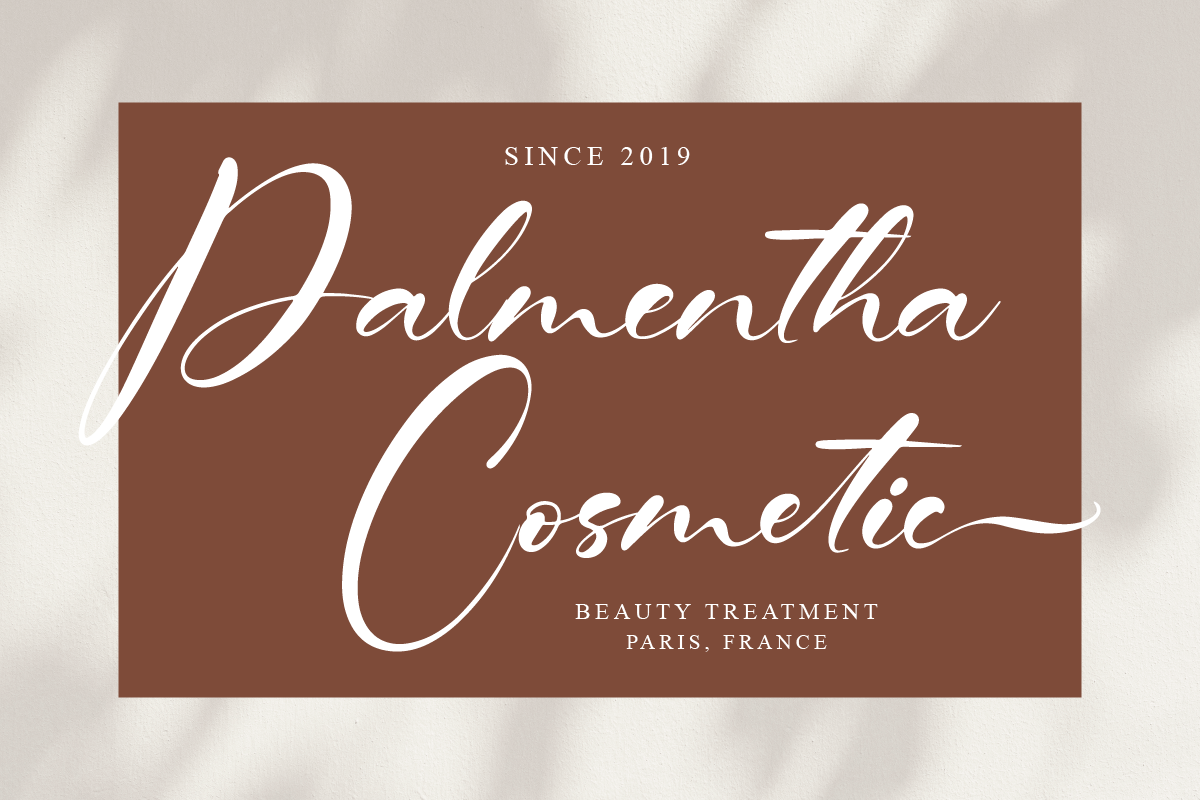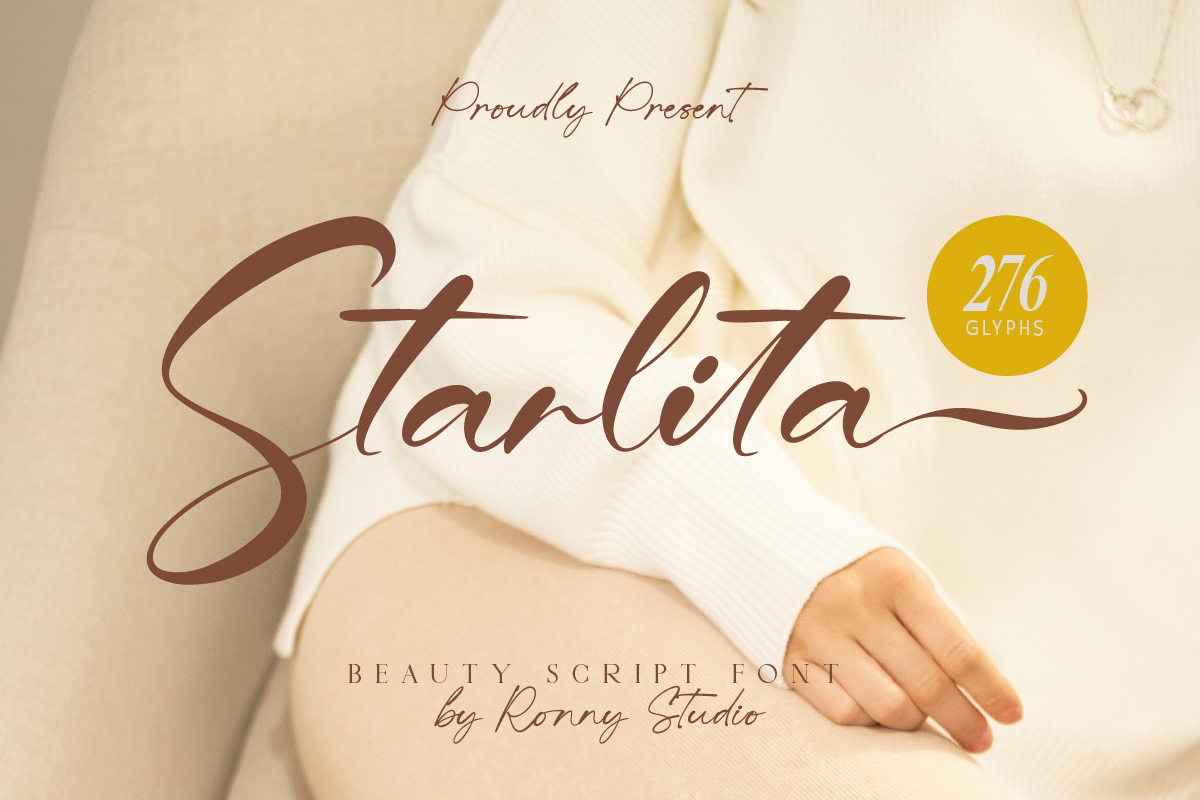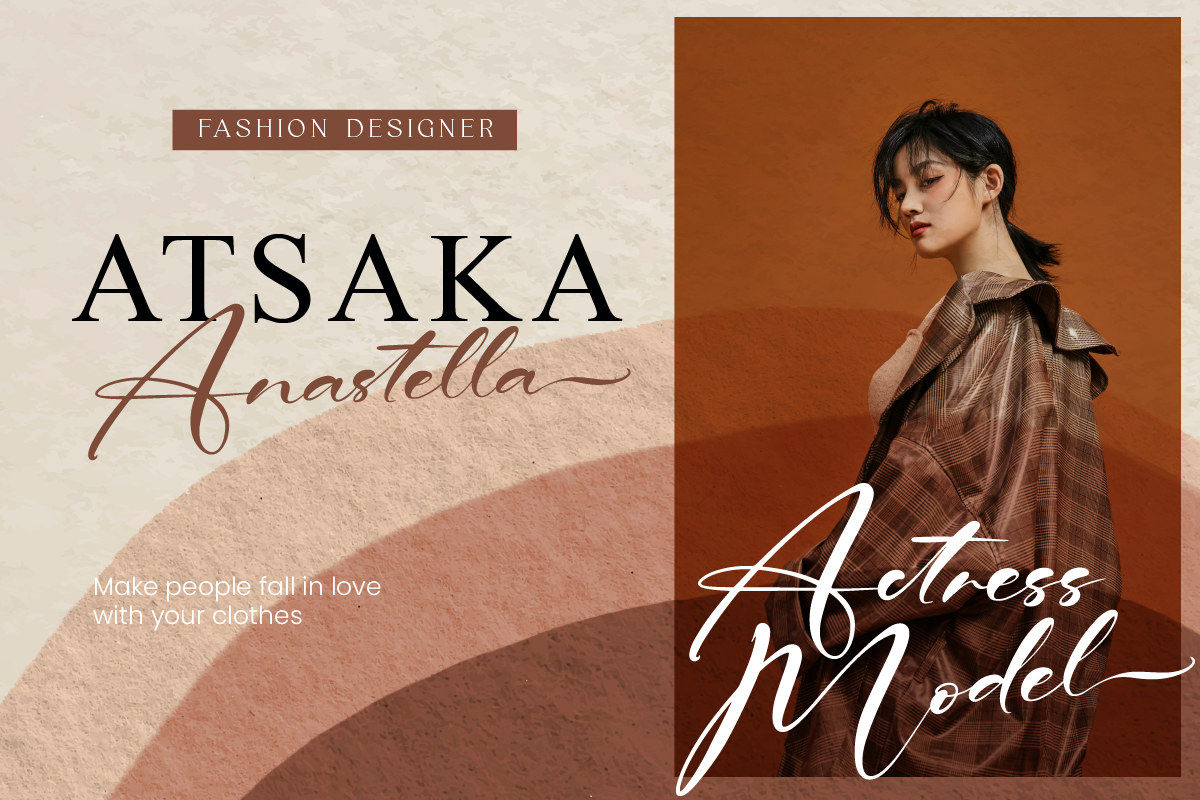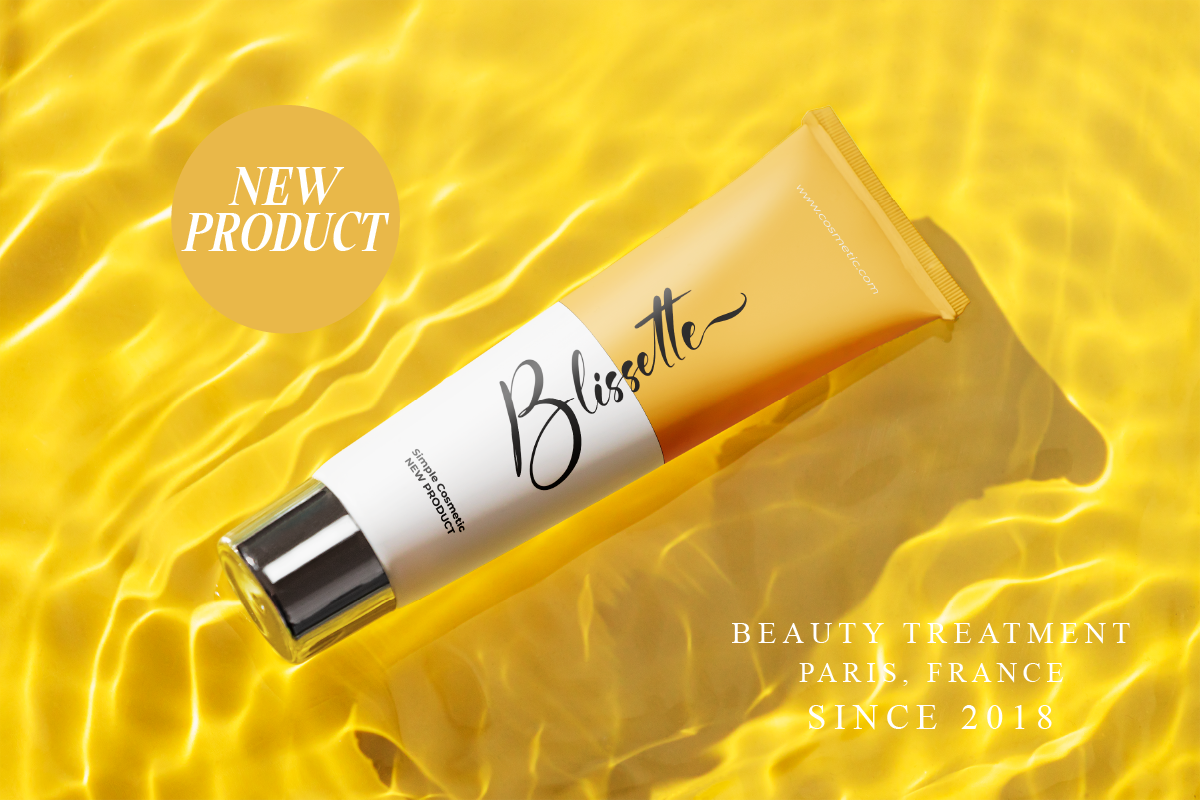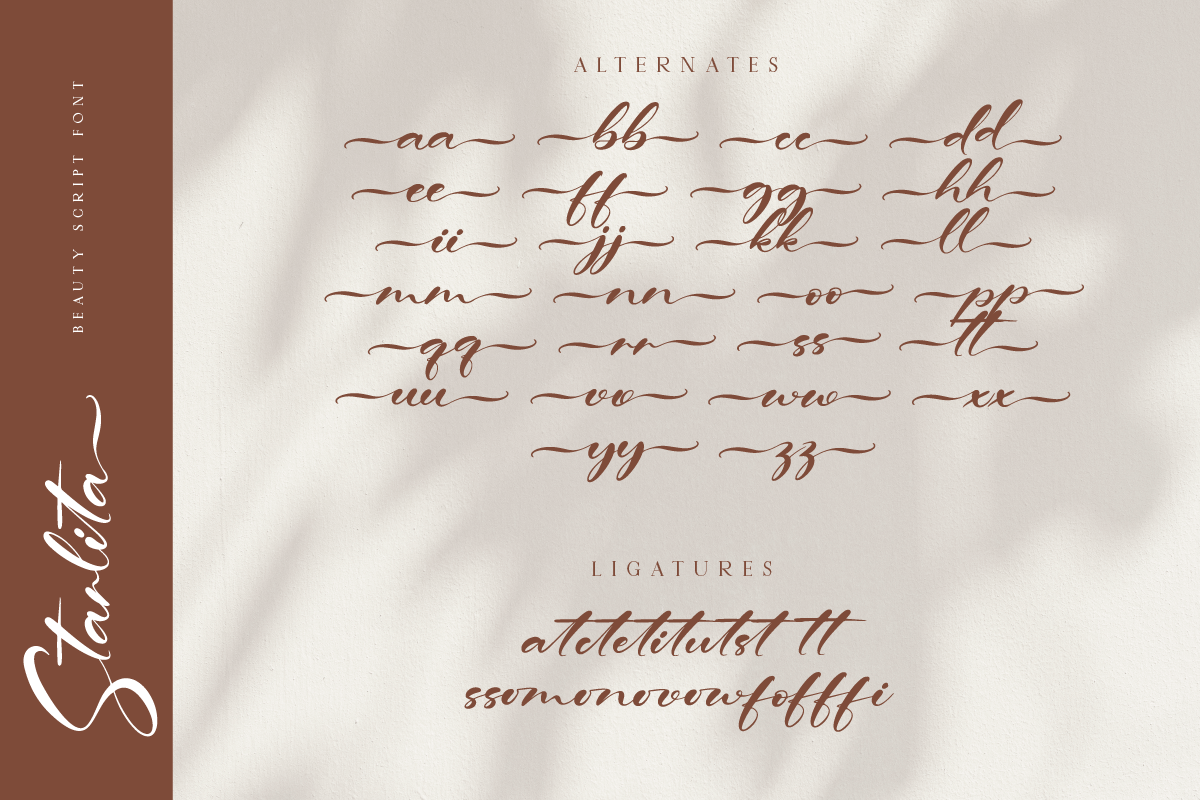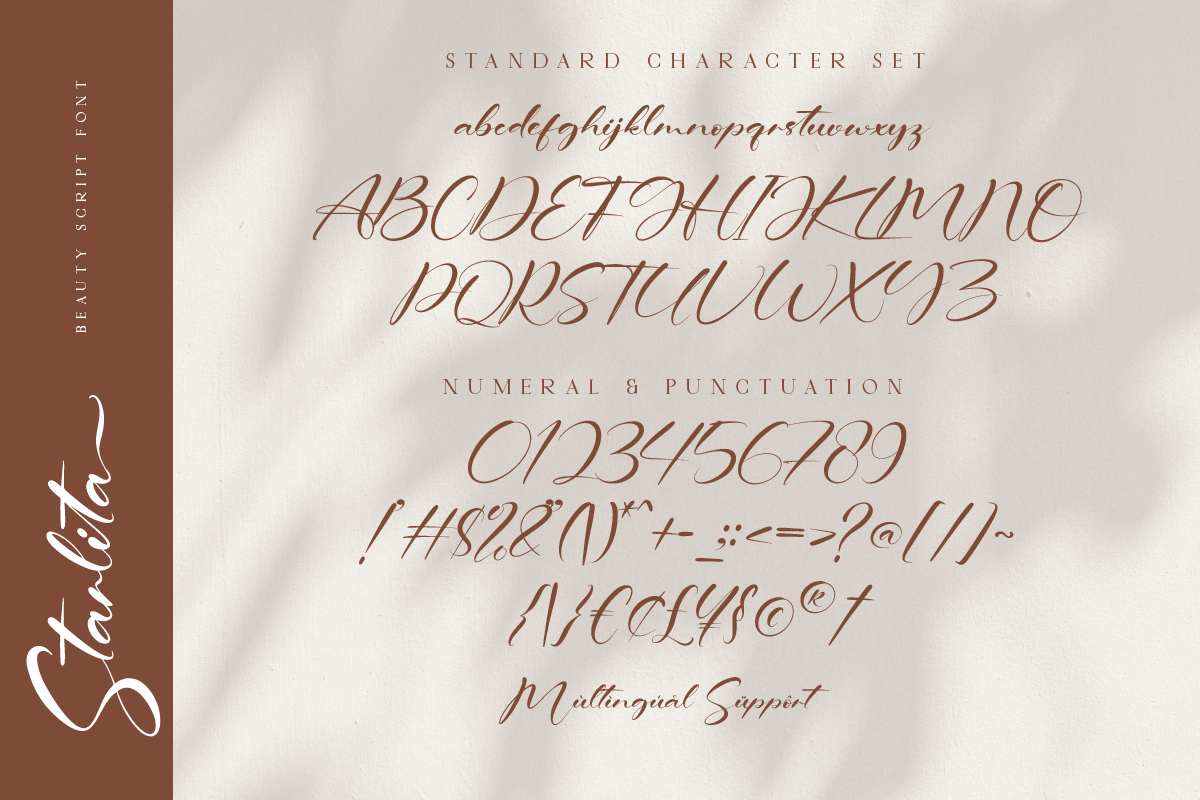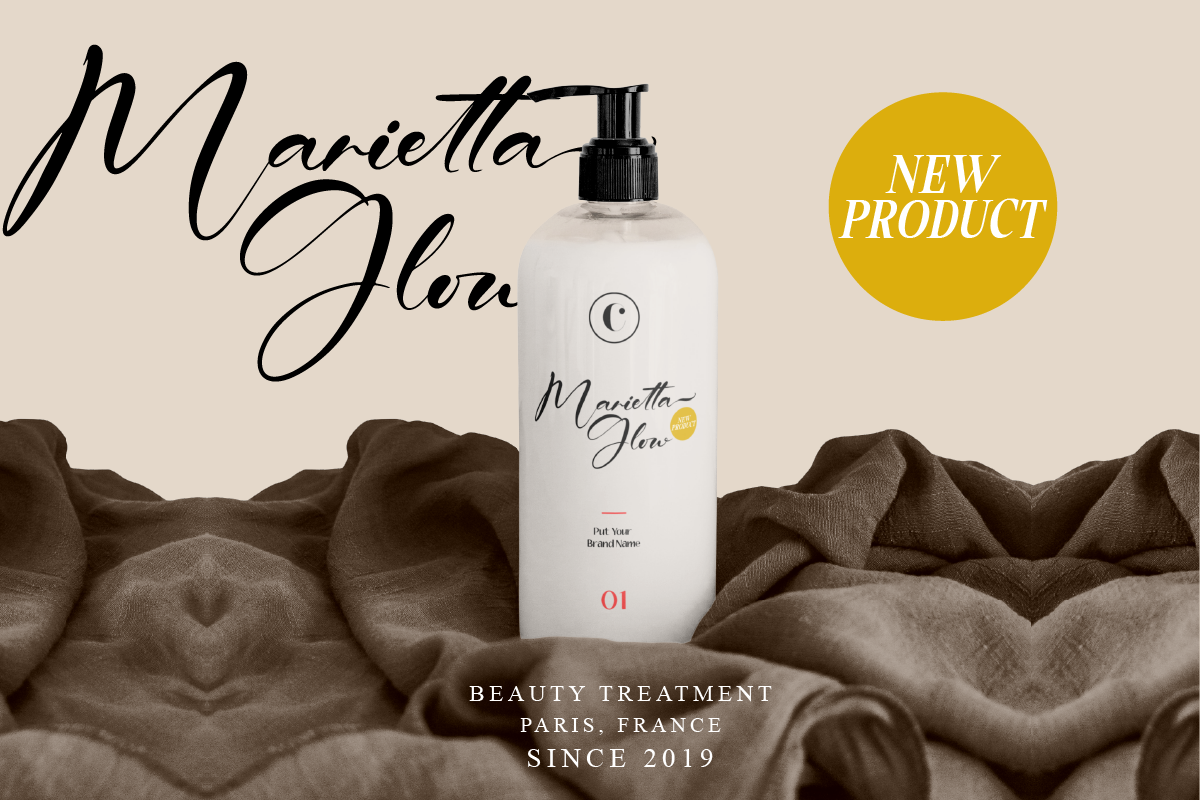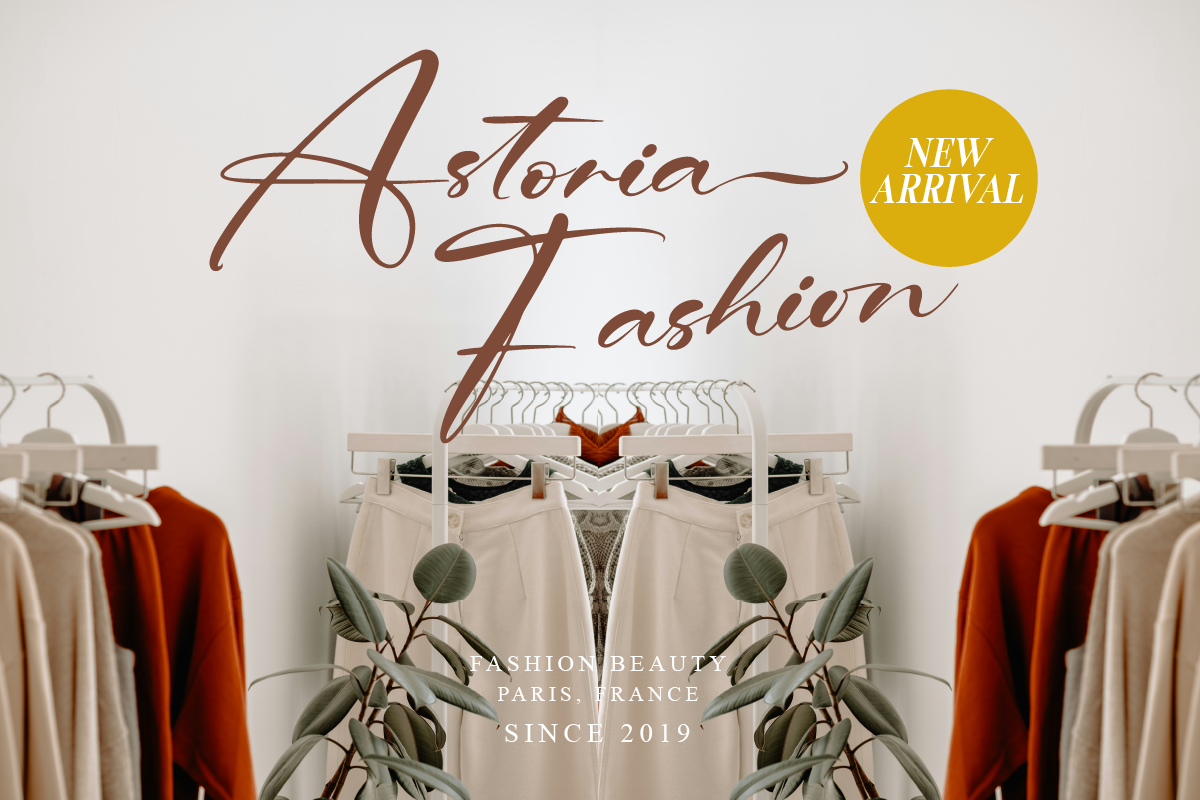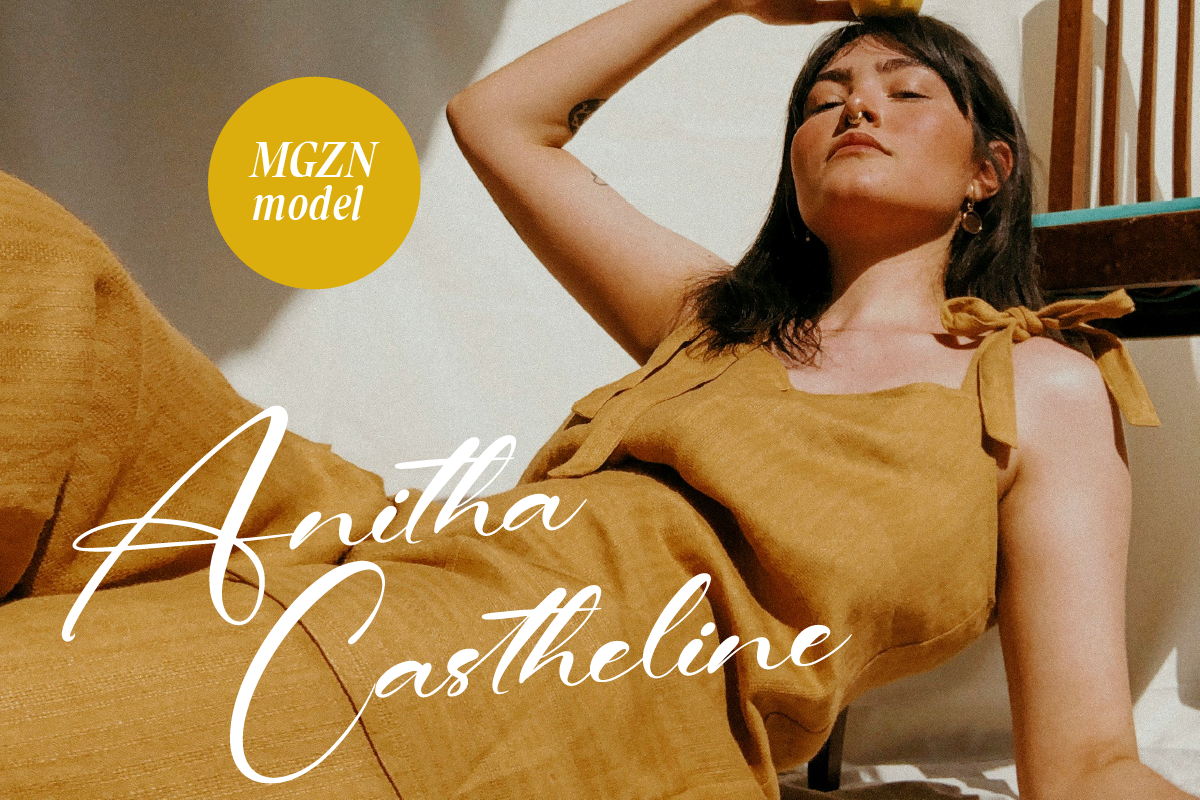
Starlita Script Font is created with a natural Modern script with a fresh modern script providing a stylish script guaranteed to add eye-catching appeal to your logo designs, brand imagery, quotes, product packaging, merchandise & social media posts